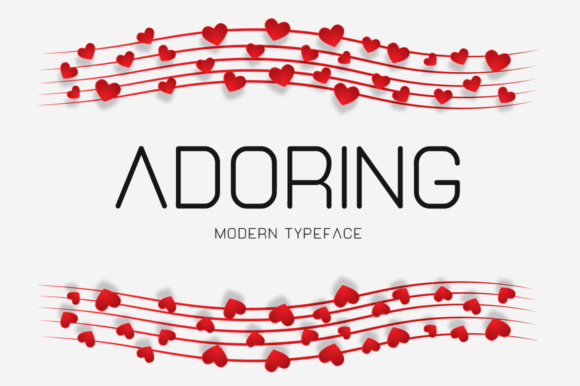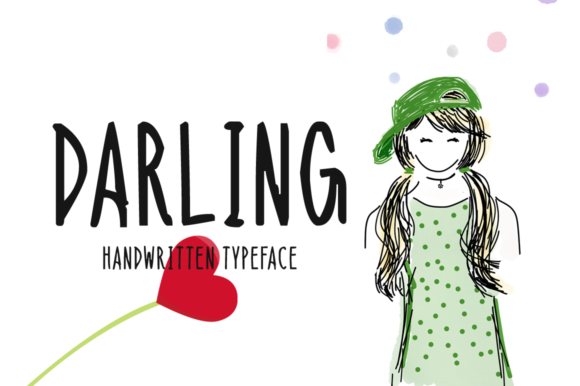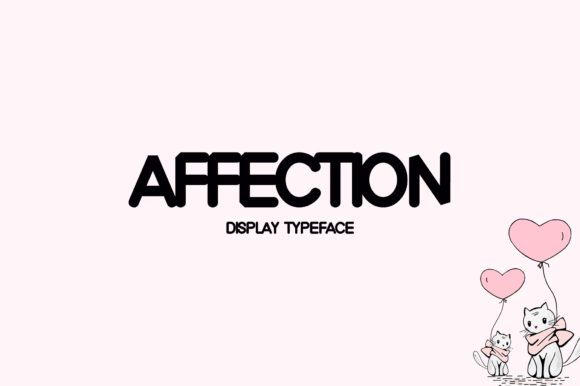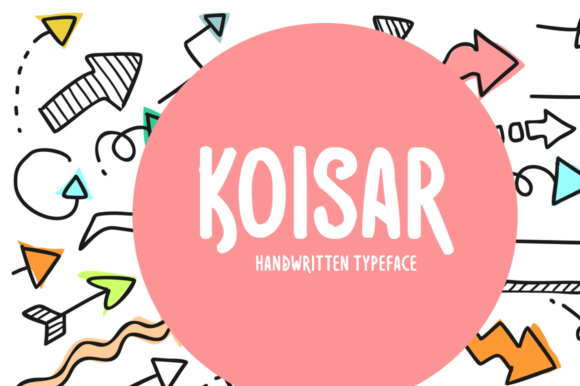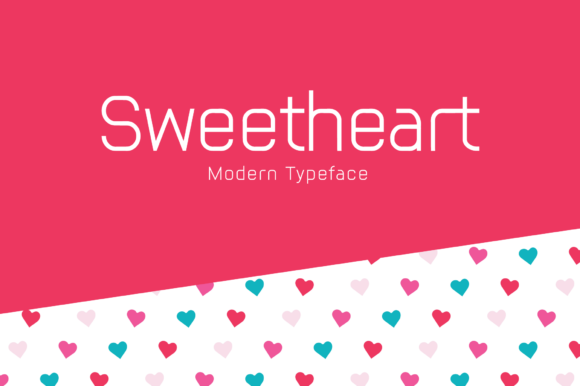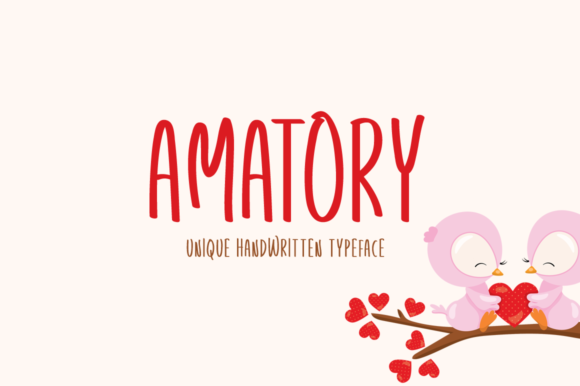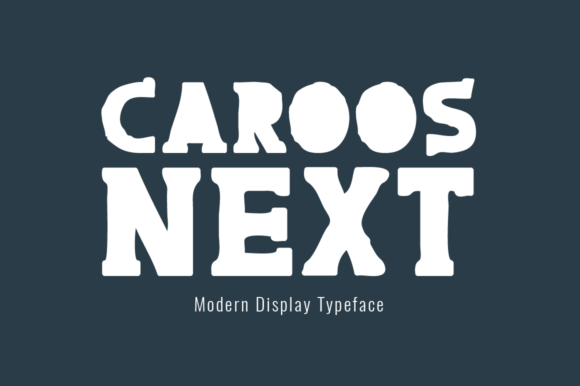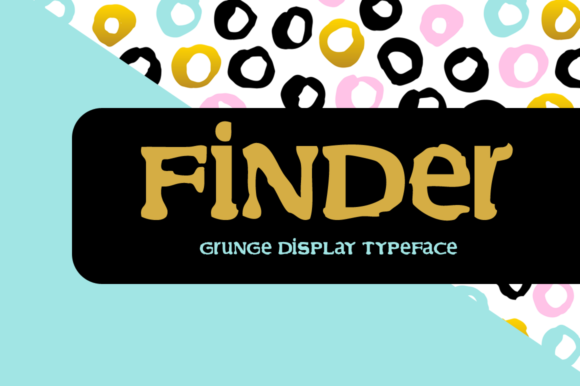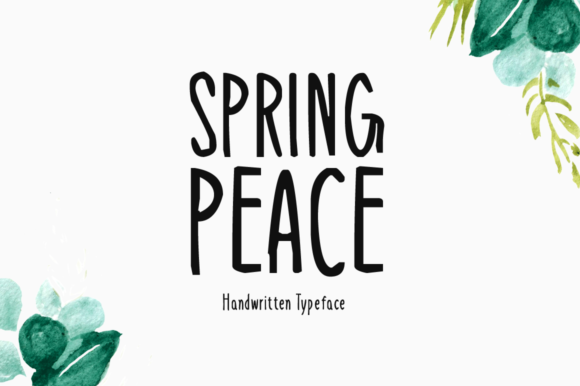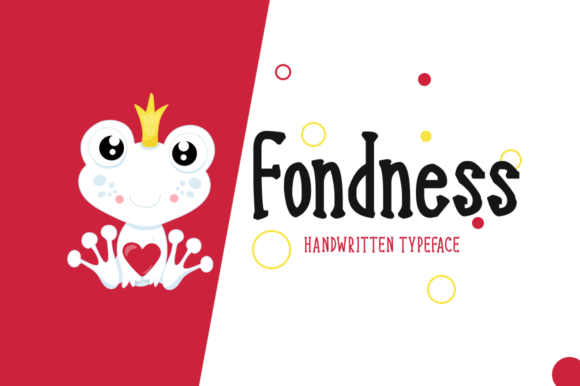
To use Instagram’s new location font styles in 2026, start an Instagram post or story, tap the location sticker, and select from available font options to customize the style. Experiment with different fonts to boost brand appeal—download unique font overlays from Creative Fabrica for further customization.
Instagram Location: New Font Style Updates for Creators
Instagram’s location tag has always played a crucial role in expanding reach and engagement for creators, but with the 2026 introduction of the instagram location new font style feature, personal branding opportunities have never been better. Now, designers, content creators, bloggers, and small business owners can make their Instagram stories and posts truly stand out by effortlessly customizing the look of their location tags. These new font options let you align your social media visuals with your brand’s mood, whether aiming for playful, modern, or elegant. With powerful fonts available through platforms like Creative Fabrica, you gain access to premium overlays and trending font updates specifically made for Instagram location font contexts. In this guide, you’ll learn step-by-step how to use Instagram’s updated tools, discover the benefits of unique typefaces for engagement, and explore top font resources to boost your content’s visual appeal. 37 Professional Condensed Fonts for Designers 2026 (Free Dow
Top 5 Fonts for Instagram Location Tags: Comparison Table
| Adoring Font | Handwritten, Elegant | Wedding posts, lifestyle brands, elegant promotions | Commercial |
| Darling Font | Girly Script, Whimsical | Fashion brands, influencers, story highlights | Commercial |
| Affection Font | Playful Script | Personal blogs, event announcements, invitations | Commercial |
| Koisar Font | Modern Serif | Minimalist brands, upscale menus, tech themes | Commercial |
| Sweetheart Font | Romantic Cursive | Valentine’s promos, florists, romantic posts | Commercial |
Best Creative Fabrica Fonts for Instagram Location Tag Customization
Adoring Font by Instagram Fonts · Creative Fabrica
Adoring Font introduces a clean, handwritten aesthetic with elegant curves, making it perfect for sophisticated Instagram stories and posts. Its graceful style enhances wedding invitations, luxury branding, or personal announcements that require a touch of romance. This font’s versatility also suits lifestyle content aimed at elegance and emotional impact. Try it for location tags on event photos or refined promotional posts.
Darling Font by Instagram Fonts · Creative Fabrica
Darling Font features a whimsical, feminine script, ideal for playful Instagram content. Its cheerful lines and unique loops make it a favorite for fashion stories, boutique promotions, and influencer branding. Use Darling Font for story covers, highlight icons, and creative captions to attract attention with a light-hearted vibe.
Affection Font by Instagram Fonts · Creative Fabrica
Affection Font brings a bold yet playful script style, perfect for content that needs a friendly, approachable tone. It’s great for bloggers, announcements, event invites, and uplifting social campaigns. Boost engagement by adding Affection Font to custom sticker overlays or to draw focus on special location tags.
Koisar Font by Instagram Fonts · Creative Fabrica
Koisar Font showcases a modern serif style, balancing elegance with readability. It’s particularly useful for minimalist brands, premium restaurant menus, and sophisticated tech profiles. Use Koisar to convey credibility and professionalism in both bright and muted Instagram visuals.
Sweetheart Font by Instagram Fonts · Creative Fabrica
Sweetheart Font is a romantic cursive font with a soft, loving feel. It’s the go-to for Valentine’s Day campaigns, engagement announcements, or content related to florists and heartfelt moments. The font’s rounded, elegant form provides warmth to location tags and adds emotional resonance to every story or post.
Amatory Font by Instagram Fonts · Creative Fabrica
Amatory Font is characterized by its thin, elegant script, making it an excellent pick for invitations, boutique advertising, and chic Instagram posts. Its refined lines and classic style lend a sense of sophistication to any location tag or promotional graphic. Pair it with muted color palettes for maximum impact.
Caroos Next Font by Instagram Fonts · Creative Fabrica
Caroos Next Font has a bold, stylish look that commands attention. Excellent for sale announcements, pop-up shop locations, or energetic brand stories, it offers a fresh twist on classic sans-serif. Its eye-catching style is ideal for promotional Instagram content needing instant impact.
Finder Font by Instagram Fonts · Creative Fabrica
Finder Font is a clean, geometric sans-serif with a modern vibe, ideal for tech startups, innovative product launches, and influencer location tags. It delivers maximum readability without sacrificing style, making it great for layouts where clarity counts. Use it on posts requiring a contemporary, straightforward look.
Spring Peace Font by Instagram Fonts · Creative Fabrica
Spring Peace Font displays a smooth, gentle script perfect for seasonal posts, wellness brands, or eco-friendly cafe announcements. Its inviting curves and calming presence make location tags feel approachable and fresh. Use Spring Peace to inject a touch of tranquility into your Instagram content themes.
Fondness Font by Instagram Fonts · Creative Fabrica